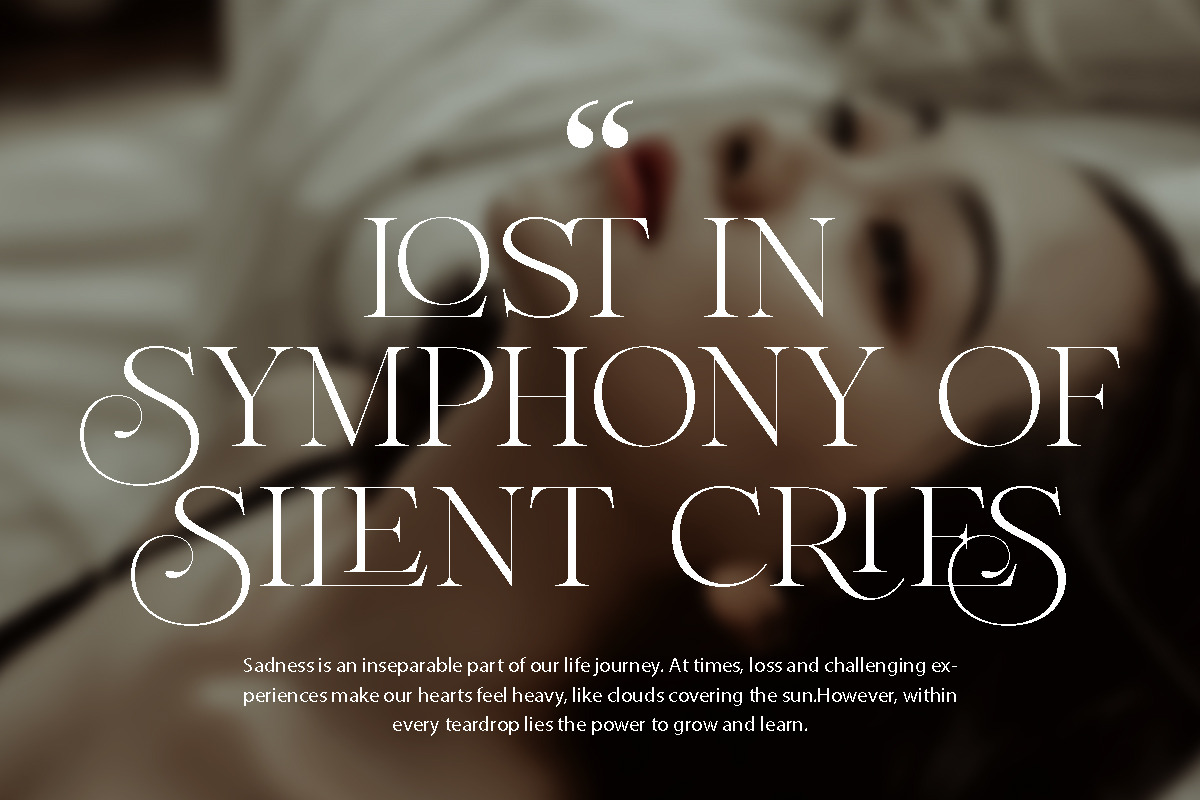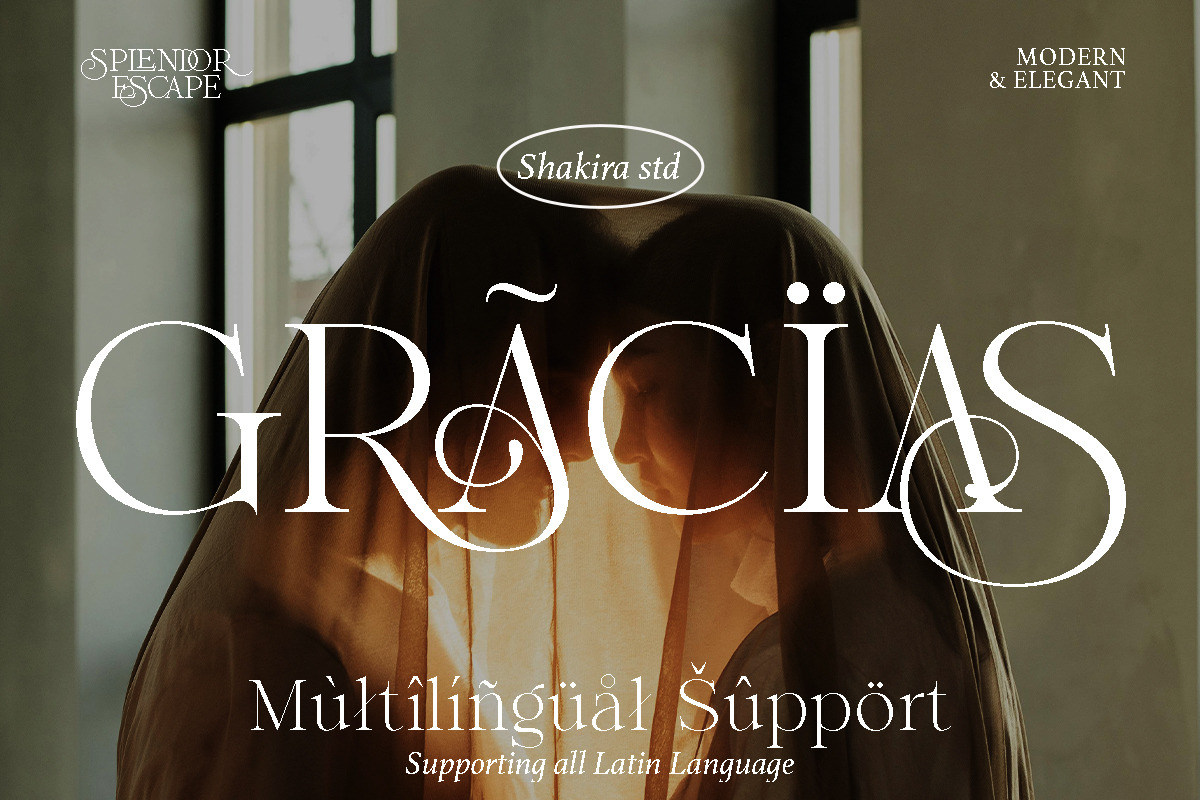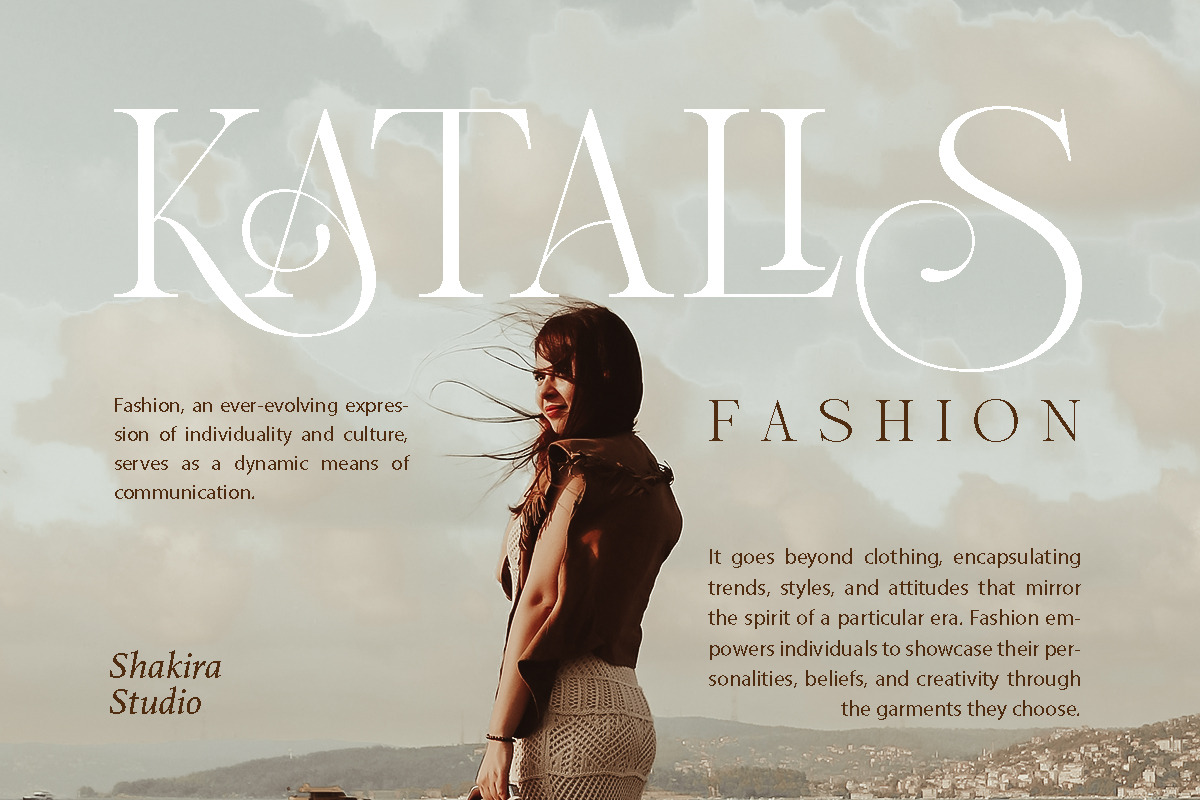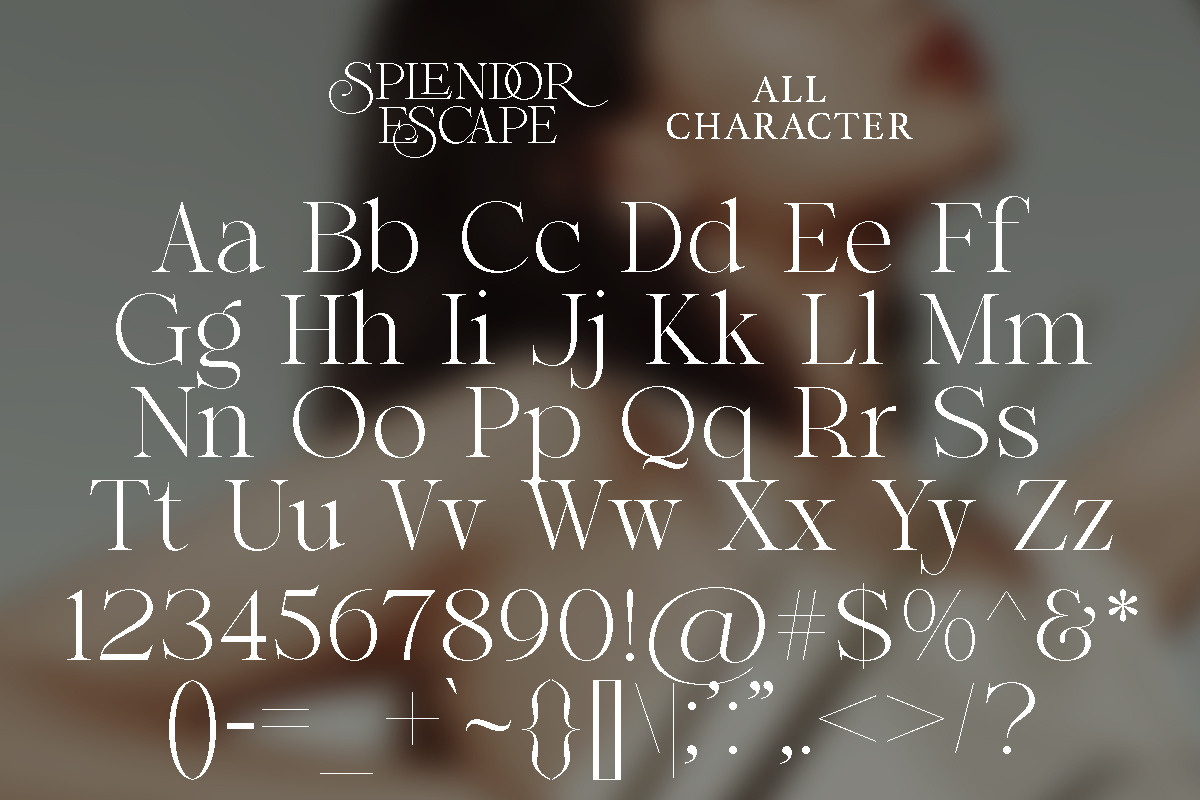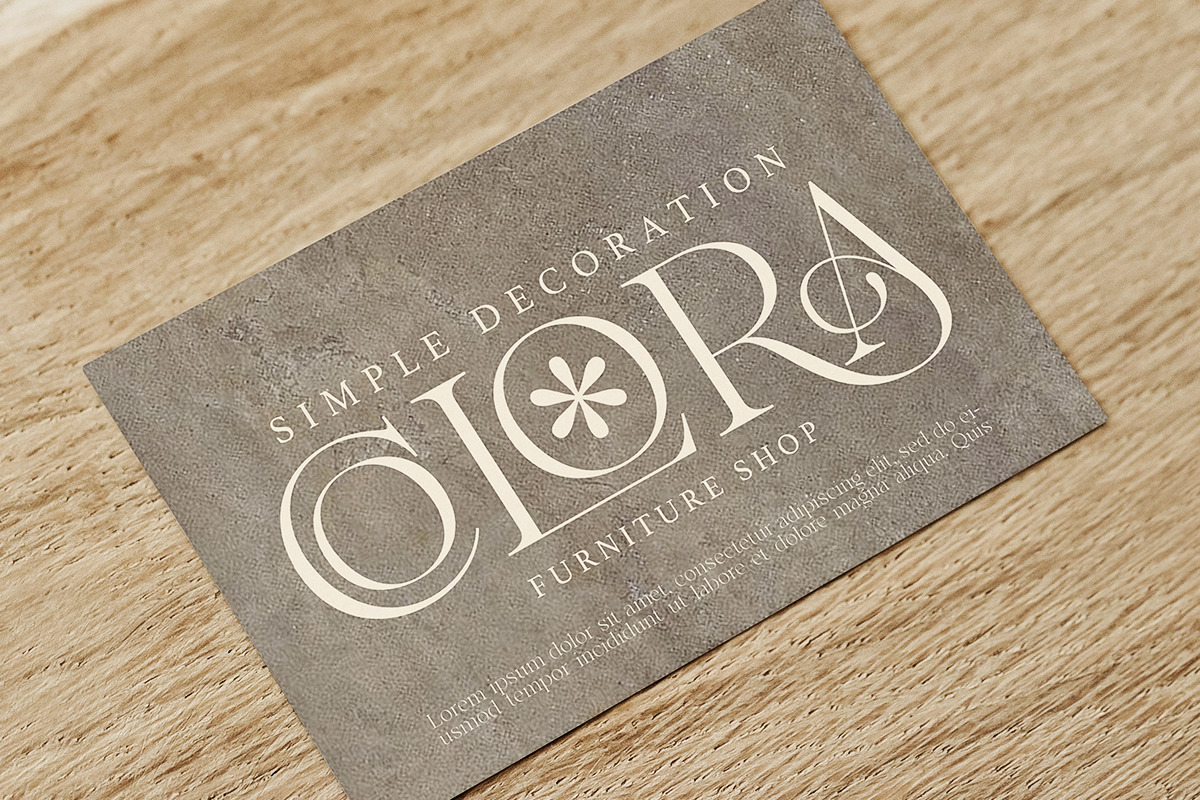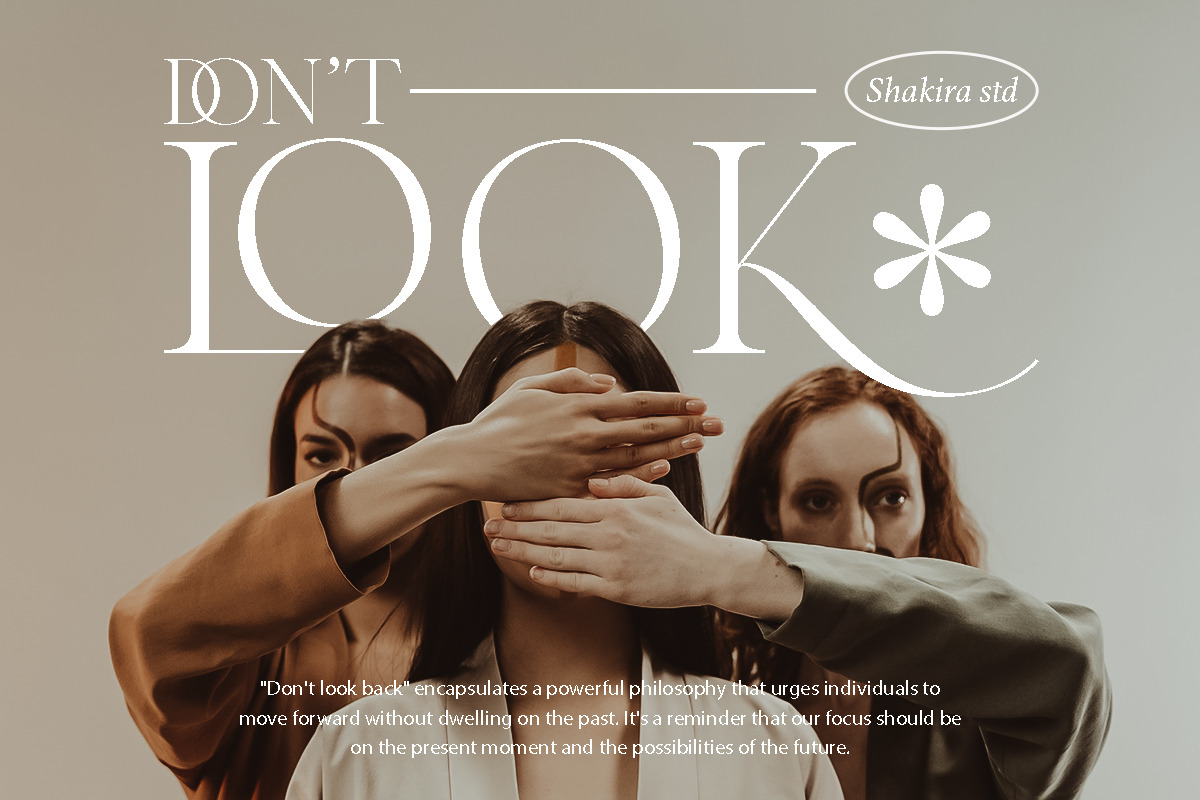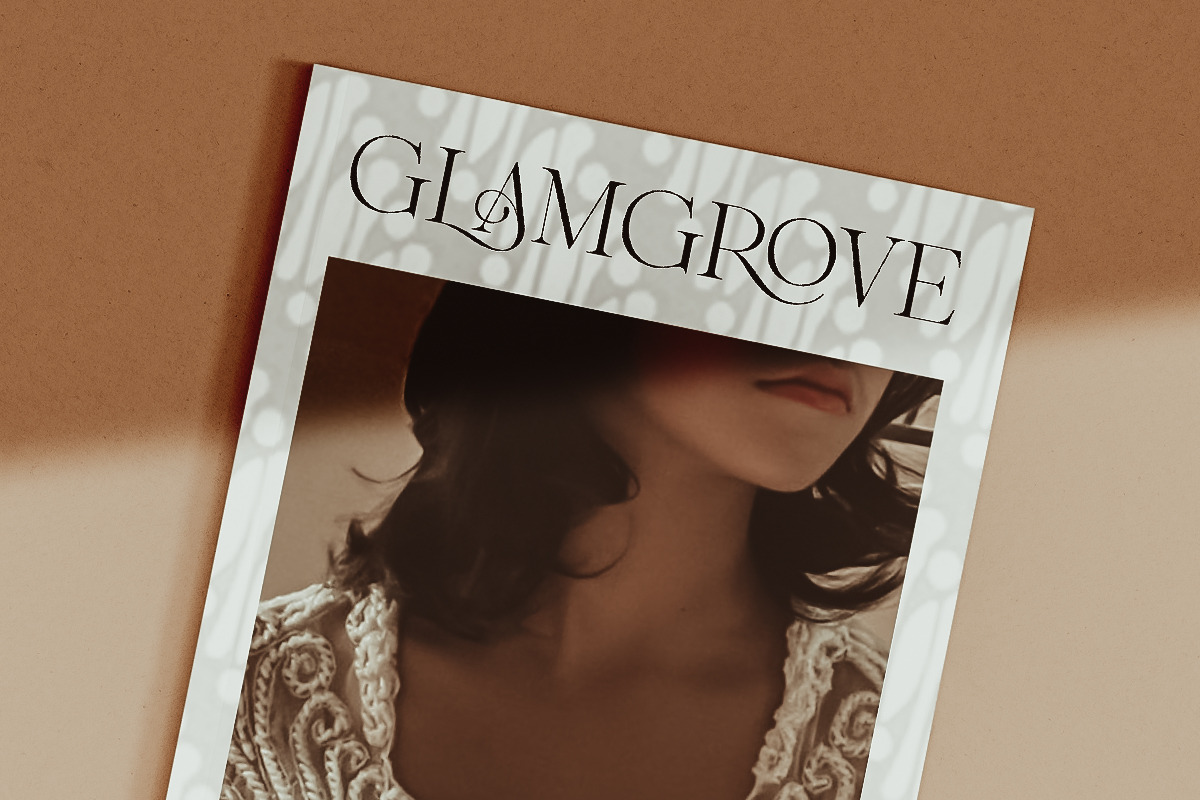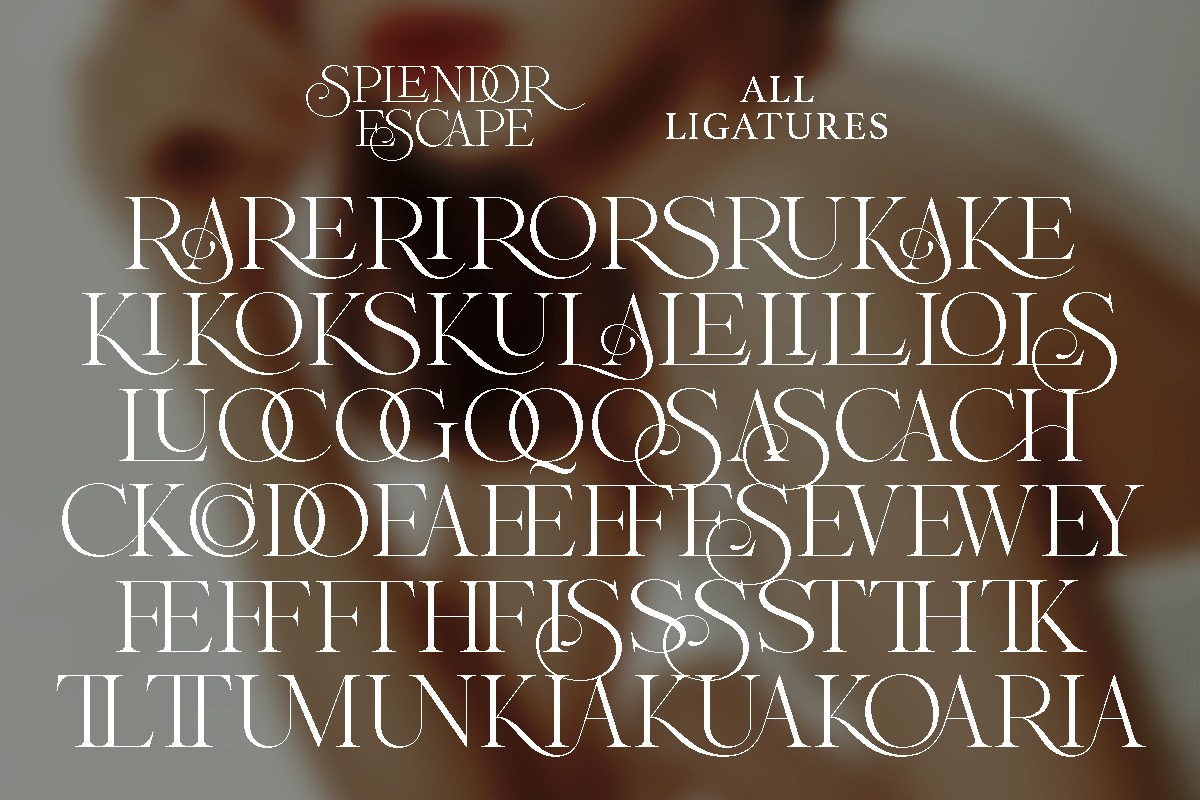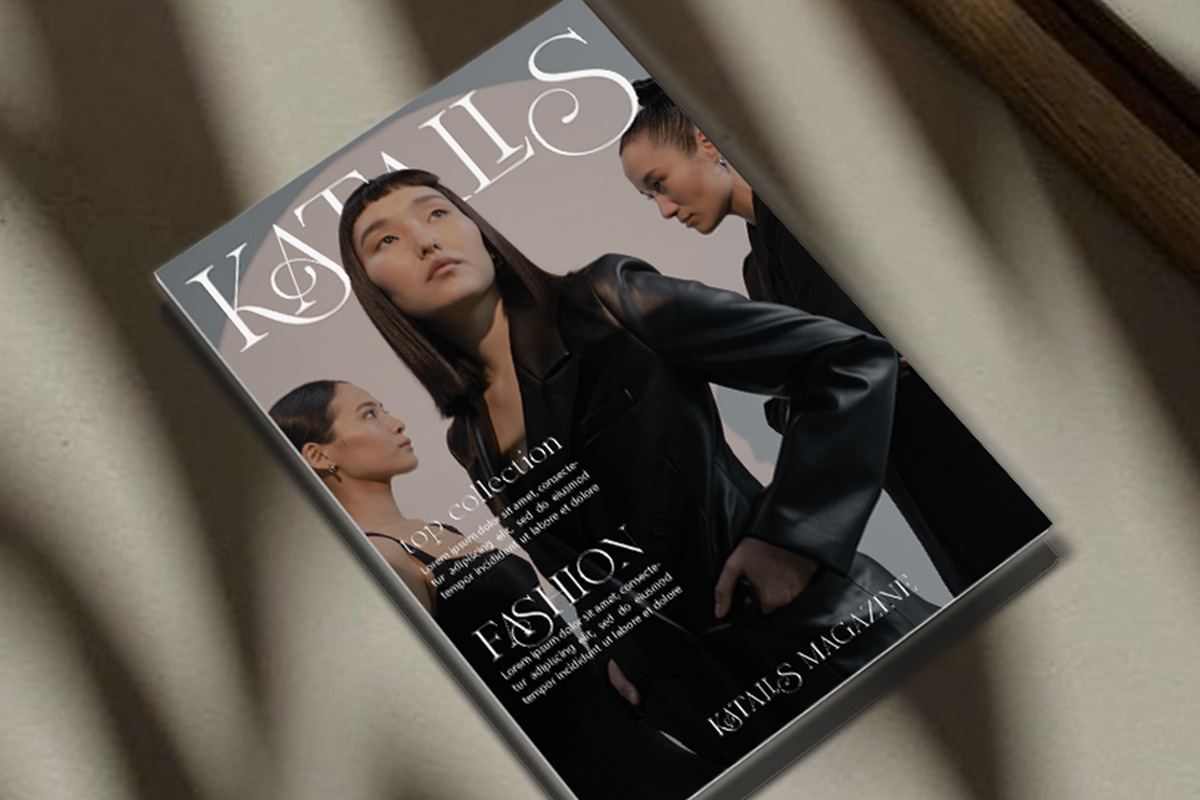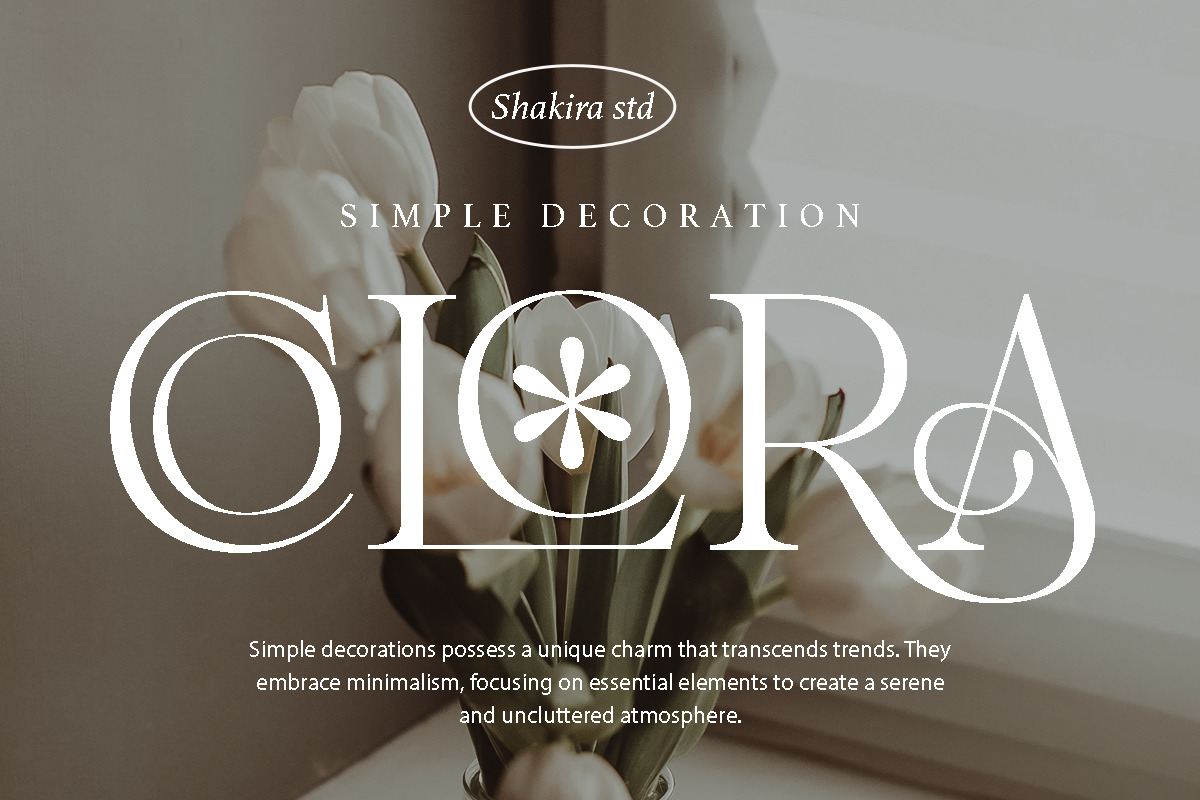
Splendor Escape - Elegant Serif
Introducing Splendor Escape - Your Gateway to Modern Elegance in Serif Typography!
Splendor Escape isn't just a serif font; it's a journey into the world of sophistication and luxury. With its modern elegant display and luxurious alternates and ligatures, Splendor Escape embodies the epitome of #SerifFonts and #TypographyTrends.
Crafted for designers seeking to make a statement, Splendor Escape offers a perfect blend of style and substance. Its sleek lines and opulent details make it ideal for branding, editorial design, and beyond.
But what truly sets Splendor Escape apart is its versatility. With both regular and italic versions available, you have the freedom to express your creativity in every project, from elegant logos to luxurious packaging.
Elevate your designs to new heights with Splendor Escape. Join the trend towards timeless sophistication and make your projects shine with this exquisite serif font and its luxurious alternates and ligatures! #SplendorEscape #ModernElegance #DesignLuxury
- Regular & Italic
- Opentype features ( ligature, alternate )
Multilingual character supports : (Afrikaans, Albanian, Catalan, Croatian, Czech, Danish, Dutch, English, Estonian, Finnish, French, German, Hungarian, Icelandic, Italian, Lithuanian, Maltese, Norwegian, Polish, Portuguese, Slovenian, Spanish, Swedish, Turkish, Zulu)